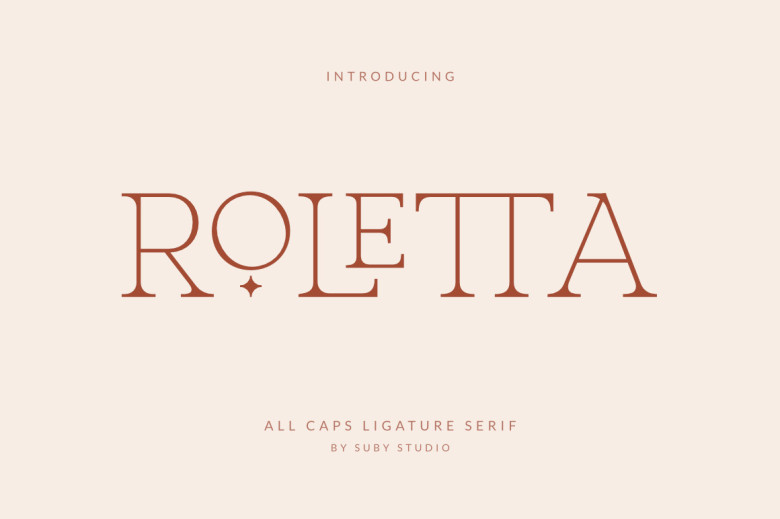
Roletta Font
Roletta Classy Serif Font is an elegant style, best applied to a comfortable western routine. This font is not only simple and easy to use, the typographic effect could be very beautiful if it is properly combined with your various craft designs. Perfect for branding, logos, invitations, etc.
Roletta Serif Font